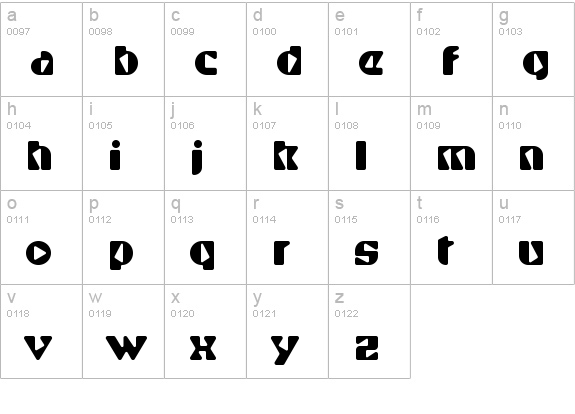
Shuriken Boy Std Font Details
Shuriken Boy Std font is a striking display typeface that embodies the essence of boldness and precision. With its sharp edges and sleek design, this font is perfect for capturing attention and making a lasting impression. Whether you're designing a logo, creating a poster, or crafting a website, Shuriken Boy Std font will elevate your project to new heights. The beauty of Shuriken Boy Std font lies not only in its aesthetics but also in its versatility. It can seamlessly adapt to various design styles and themes, making it an excellent choice for both modern and classic projects. Its clean lines and balanced letterforms make it highly legible, ensuring that your message is conveyed with clarity and impact. One of the greatest advantages of Shuriken Boy Std font is that it is available for free. You read that right, this exceptional font is freely accessible to all designers and creatives. You can easily download it at FontsMarket.com, a trusted source for high-quality fonts. By choosing Shuriken Boy Std font, you not only gain access to a visually stunning typeface, but you also save money without compromising on quality. This free font allows you to add a touch of professionalism and uniqueness to your designs, without breaking the bank. So why wait? Take advantage of the opportunity to use Shuriken Boy Std font in your next project. Download it for free at FontsMarket.com and let your creativity soar.